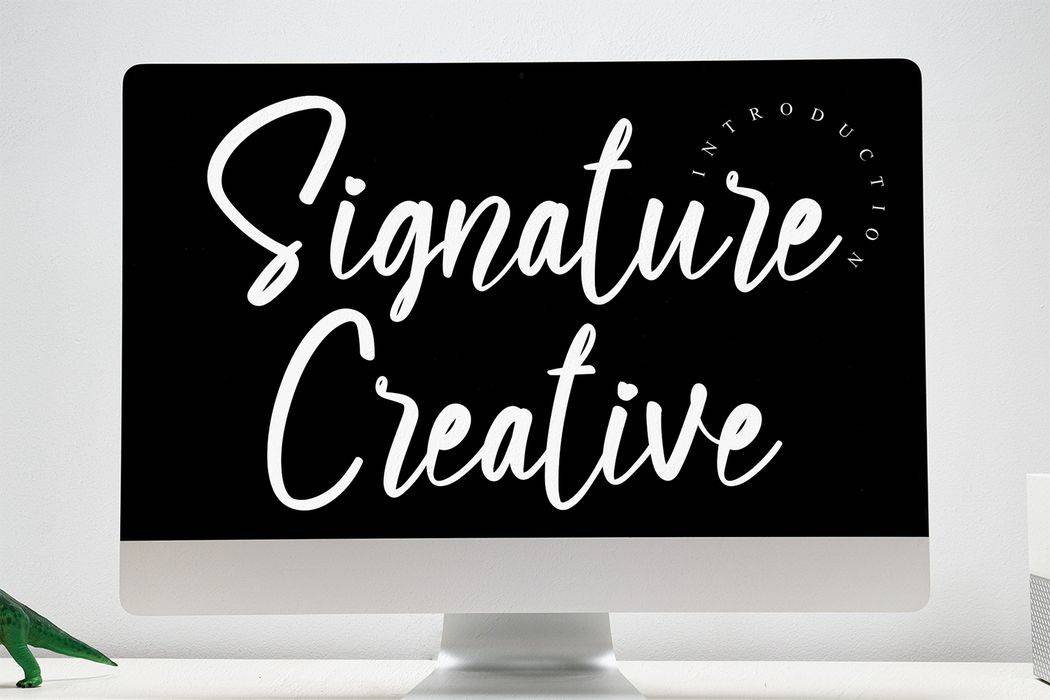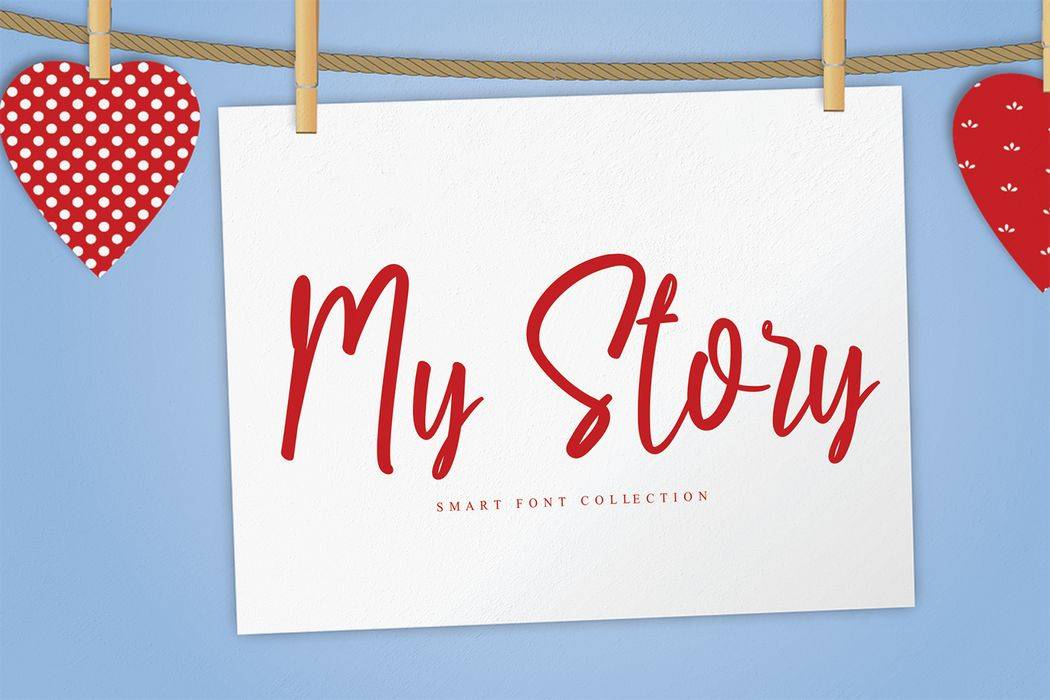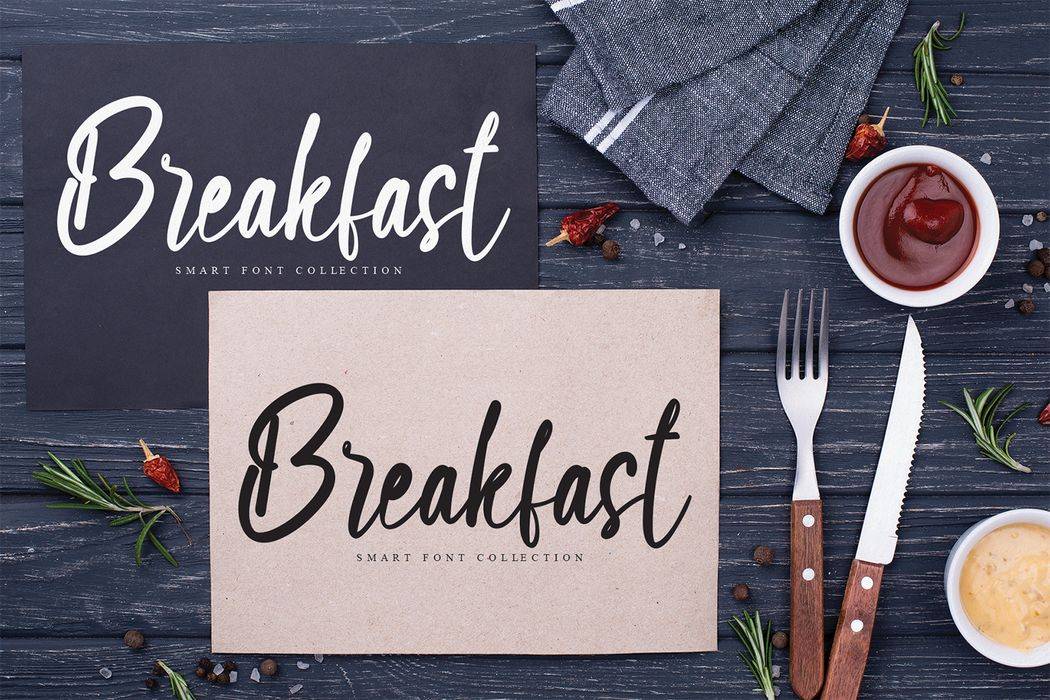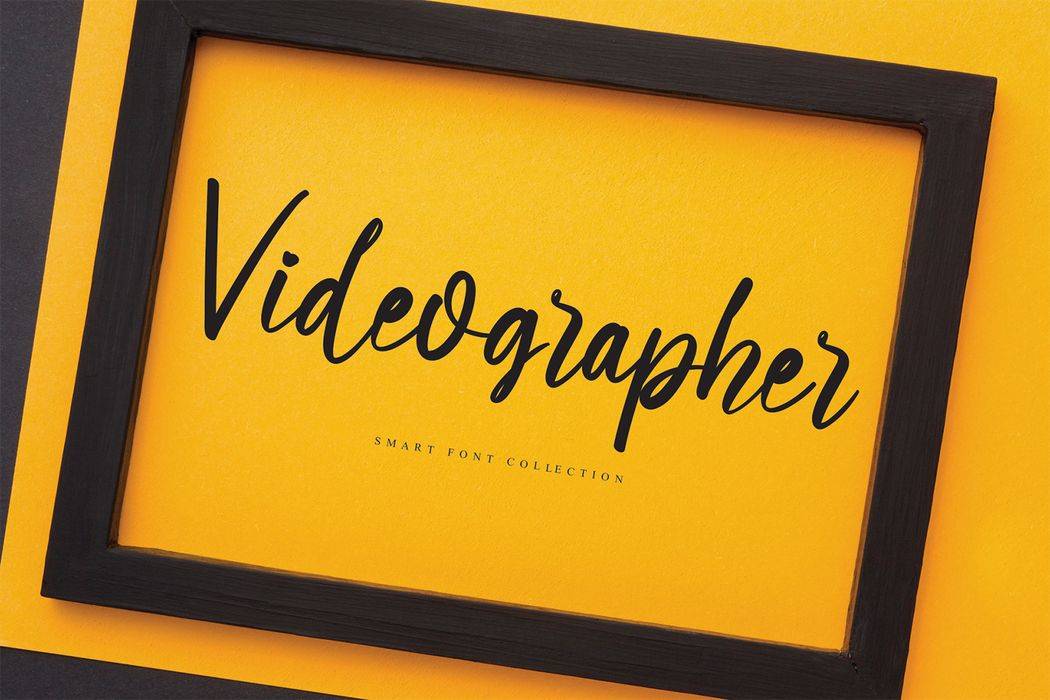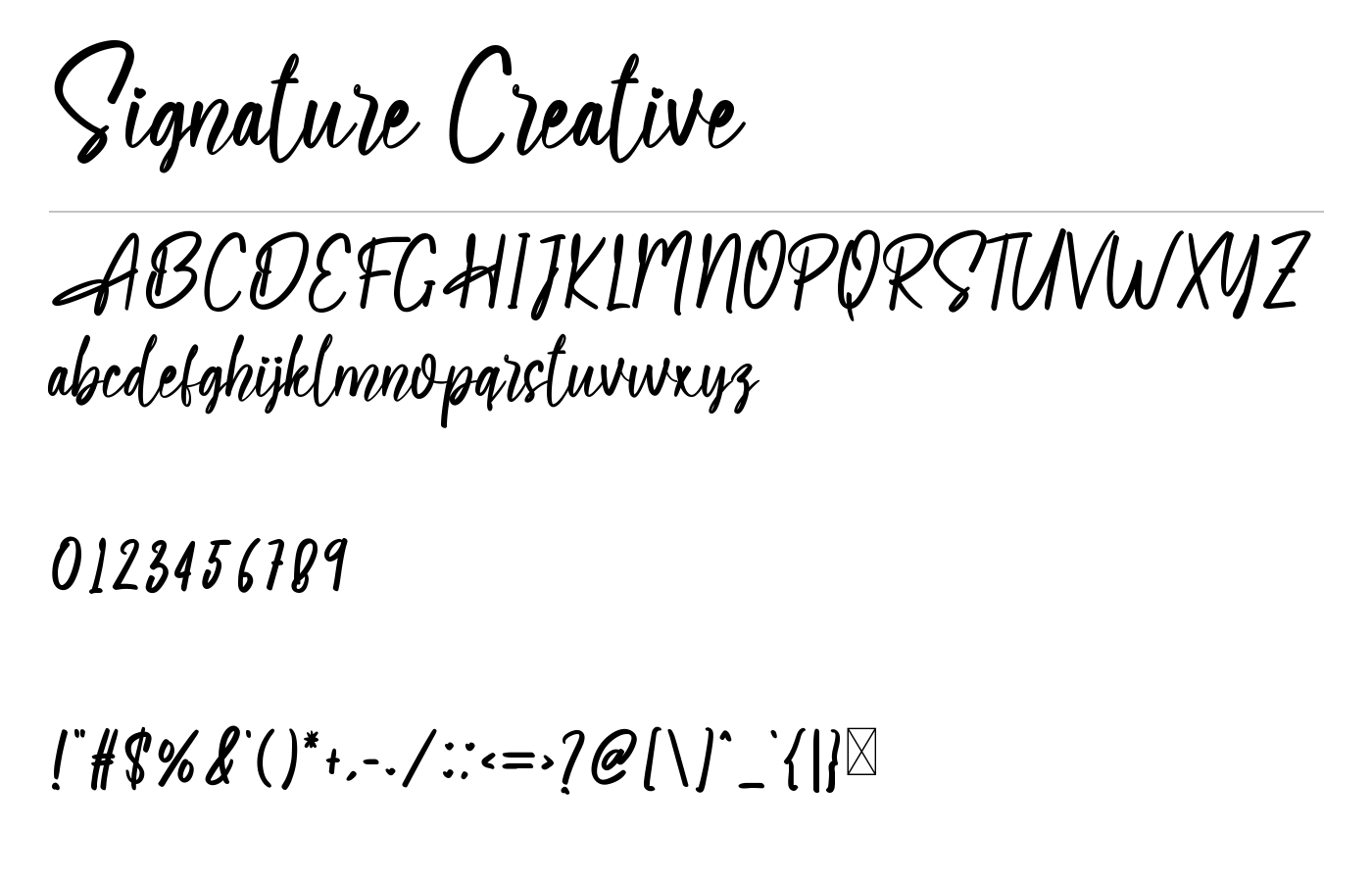
Signature Creative Font is a flowing, handwritten script with a casual yet elegant feel, featuring smooth, slightly varied stroke widths and a lively, natural rhythm. It works beautifully for branding, invitations, and creative projects where a personal, artistic touch is desired, bringing warmth and charm without sacrificing clarity. This font is ideal for designs needing a stylish, approachable handwritten style that feels genuine and unique.
Signature Creative Font
About Signature Creative Font
| Font family | Signature Creative Font |